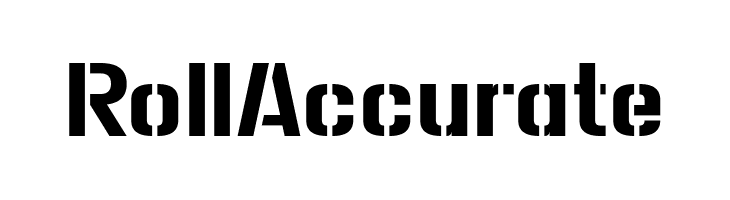
A bold, geometric font with a stencil-like, industrial design.
A bold, geometric stencil font with a modern industrial style.
A bold, stencil-style font with a rugged, military-inspired look.
A modern, decorative font with a cut-out, stencil-like design.
A bold, geometric font with a modern, stencil-like appearance.
A bold, industrial stencil-style font with high contrast and geometric forms.